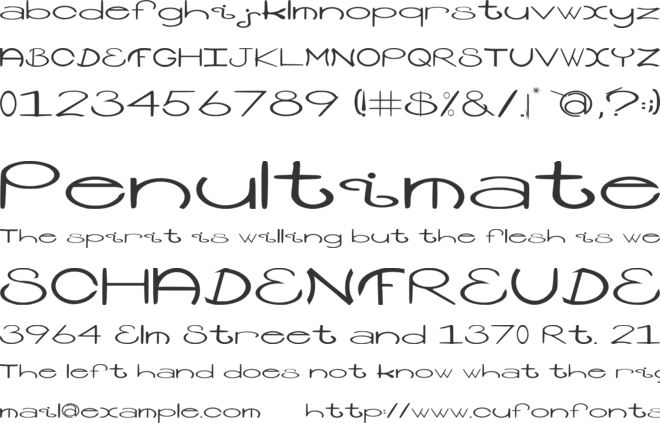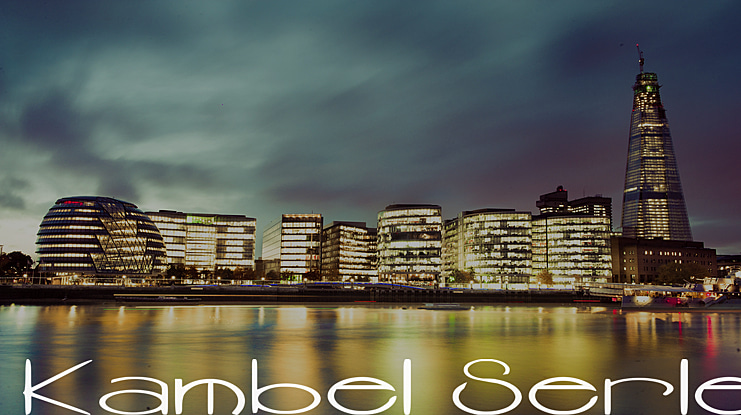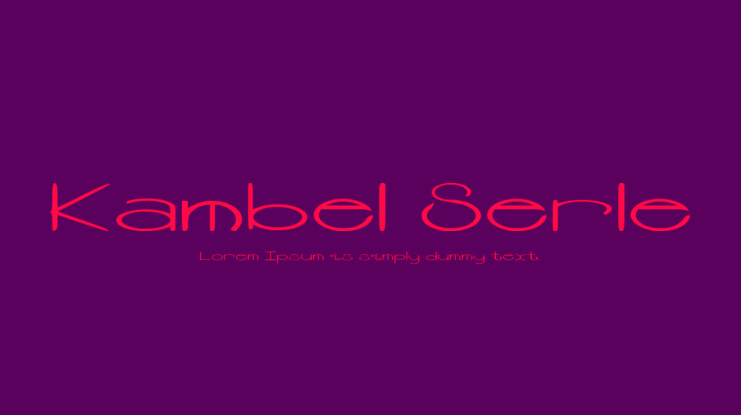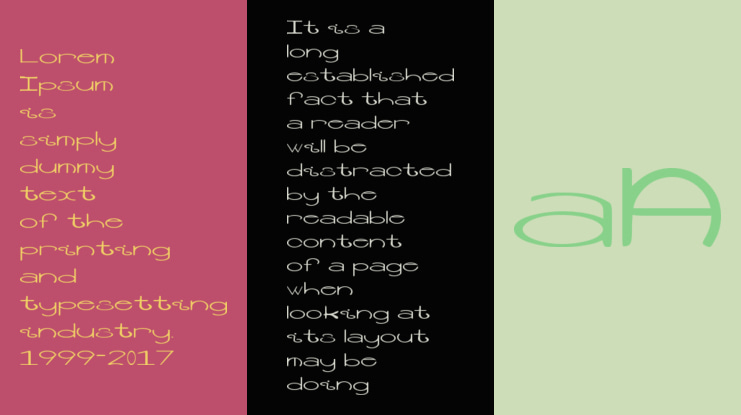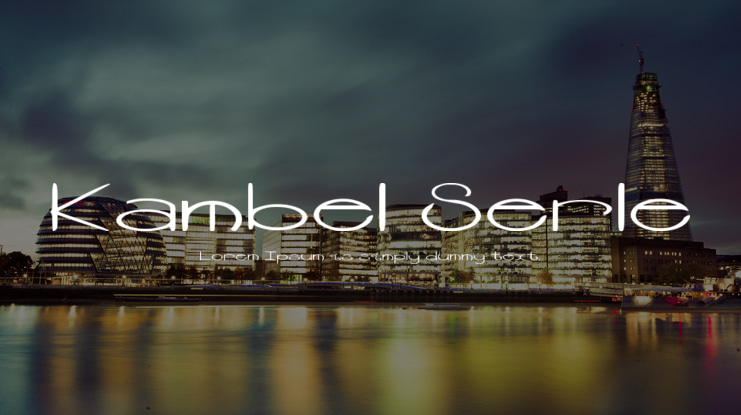
This font was designed against my own handwriting. It was re-created using Paint, Inkscape, GIMP2.0 and FontForge All updates to this font will be posted under the name of the Miasma font